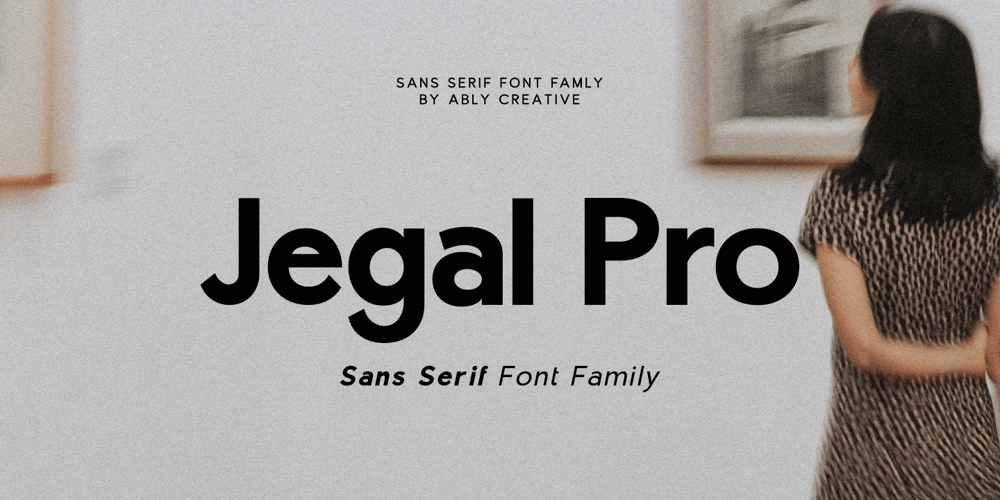
Jegal Pro Font Family was designed by Amrullah Medan, Amrullah and published by Ably Creative. Jegal Pro contains 18 styles and family package options. Jegal Pro Font is a variable sans serif font that combines modern style with minimalist beauty, designed to bring a clean, consistent and elegant impression to every design project. With flexible variable options and additional letter alternates, Jegal Pro allows designers to customize the look as needed, from light to bold in one versatile font. This font is ideal for company logos that emphasize a professional image, presenting a sophisticated and memorable look to the audience. In brochures, Jegal Pro provides high readability and a clean aesthetic, while in event branding materials, this font presents a contemporary impression that is elegant and classy. Jegal Pro is the right choice for designers who want to bring a balance between modern style and elegance without sacrificing consistency and visual flexibility in every design element.